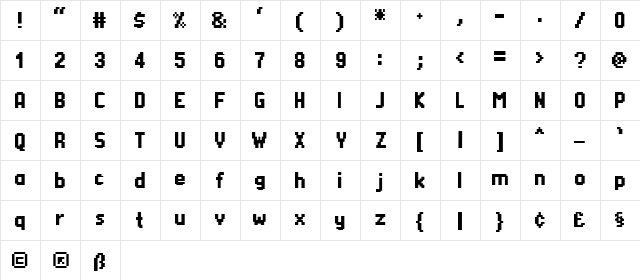
Silom Regular Font Preview
Silom Regular
Silom Regular Font Details
| Foundry | Tom Tor, |
| Designer | Tom Tor |
Design Context for Silom Typeface
Silom takes a measured approach to typography — its balanced proportions and neutral character make it a reliable workhorse for both digital and print work.